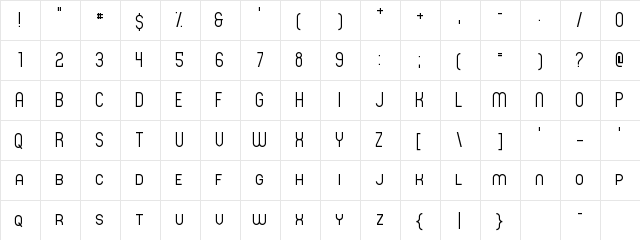
Chump Change Regular
| Designer | Allison James |
Design Context for Chump Change Typeface
Chump Change takes a measured approach to typography — its balanced proportions and neutral character make it a reliable workhorse for both digital and print work.